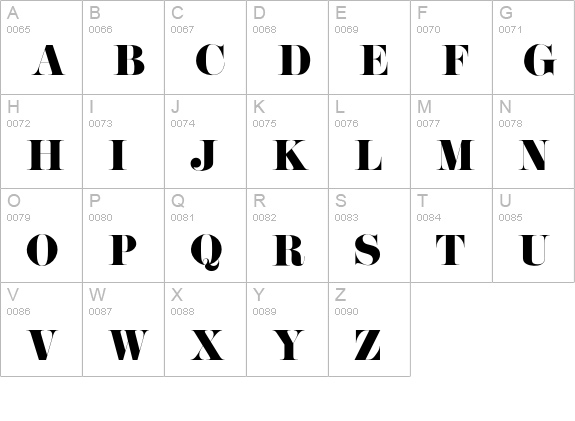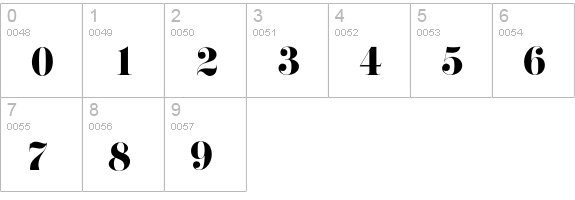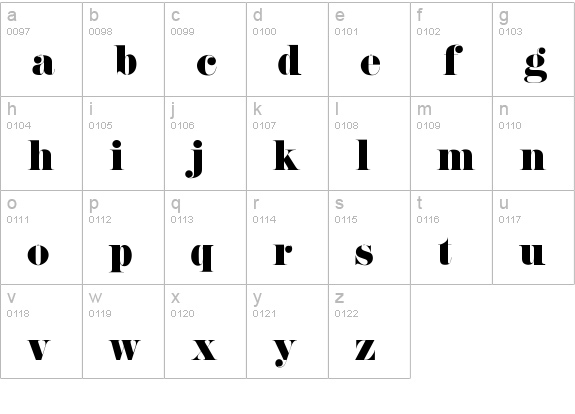
Galeere Font Details
Galeere font is an exquisite typeface that embodies elegance and sophistication. With its sleek and modern design, this font is perfect for creating eye-catching headlines, stylish logos, and captivating brand identities. The unique and distinctive letterforms of Galeere font are carefully crafted to ensure legibility while adding a touch of artistic flair to any design project. Its clean lines and balanced proportions make it versatile and suitable for both print and digital applications. But what sets Galeere font apart is that it is not only visually appealing, but it is also free! Yes, you read that right. This stunning font is freely available to download at FontsMarket.com. Whether you are a graphic designer, a creative professional, or simply someone looking to add a touch of elegance to your personal projects, Galeere font is the perfect choice. So, why wait? Discover the beauty of Galeere font and unleash your creativity today. Download it for free at FontsMarket.com and elevate your designs to new heights.